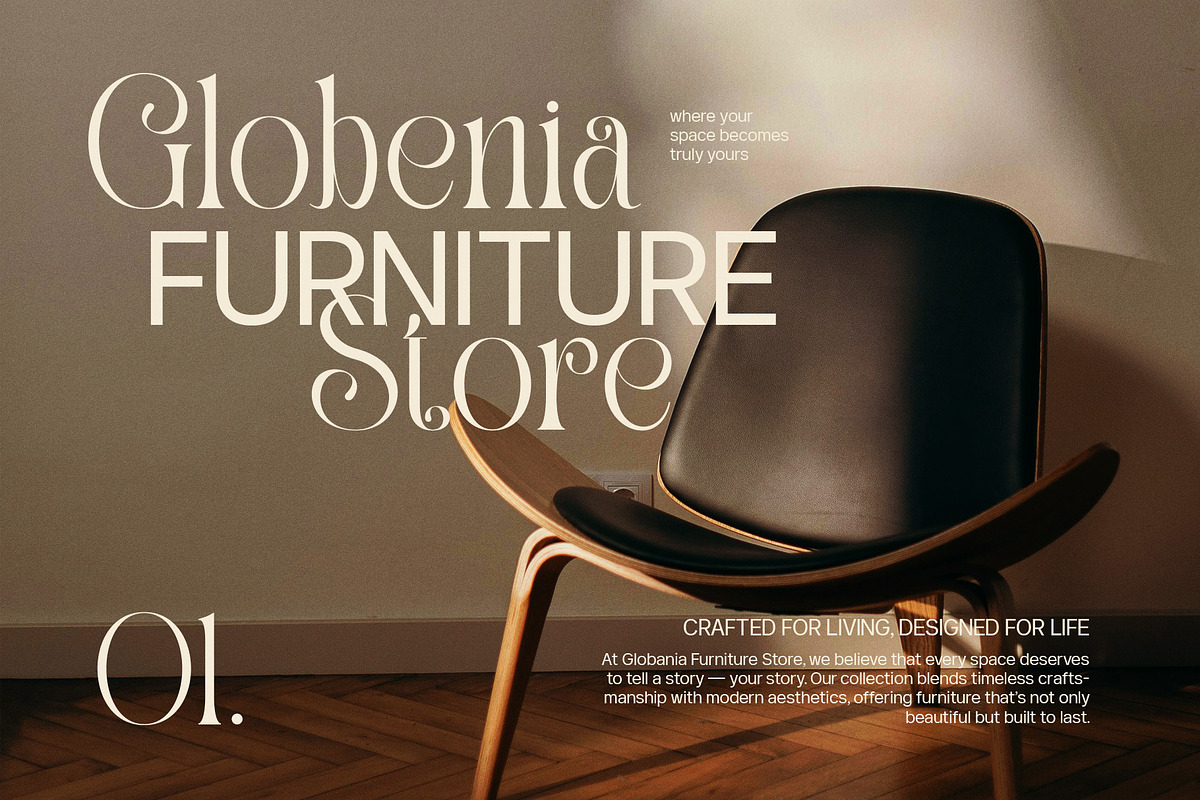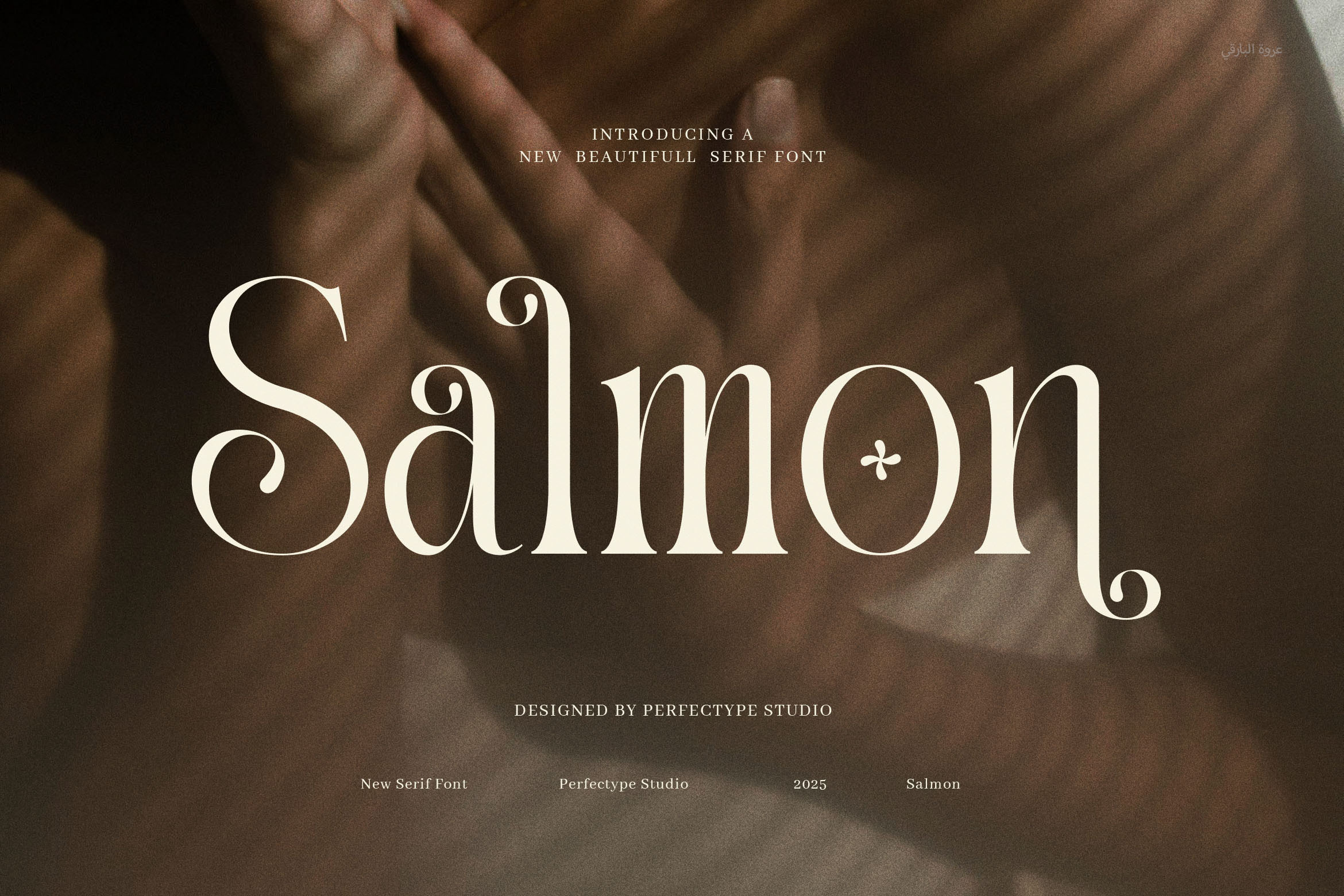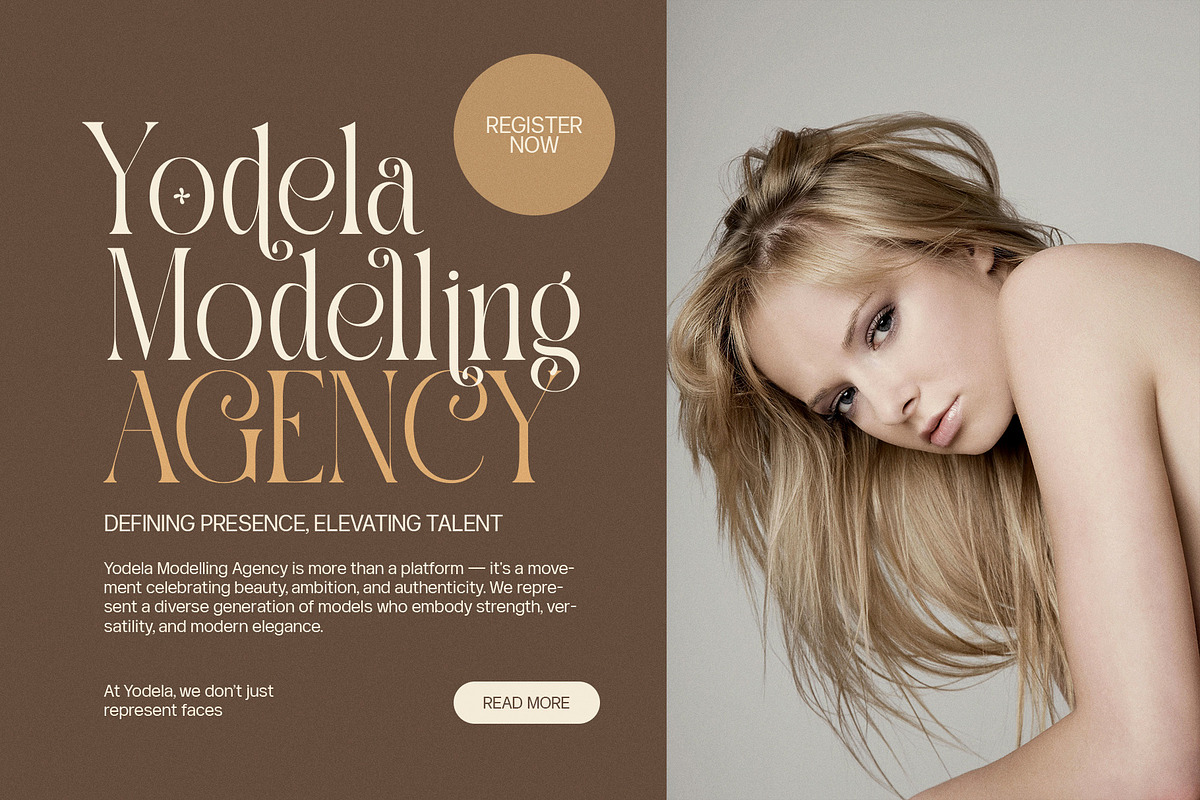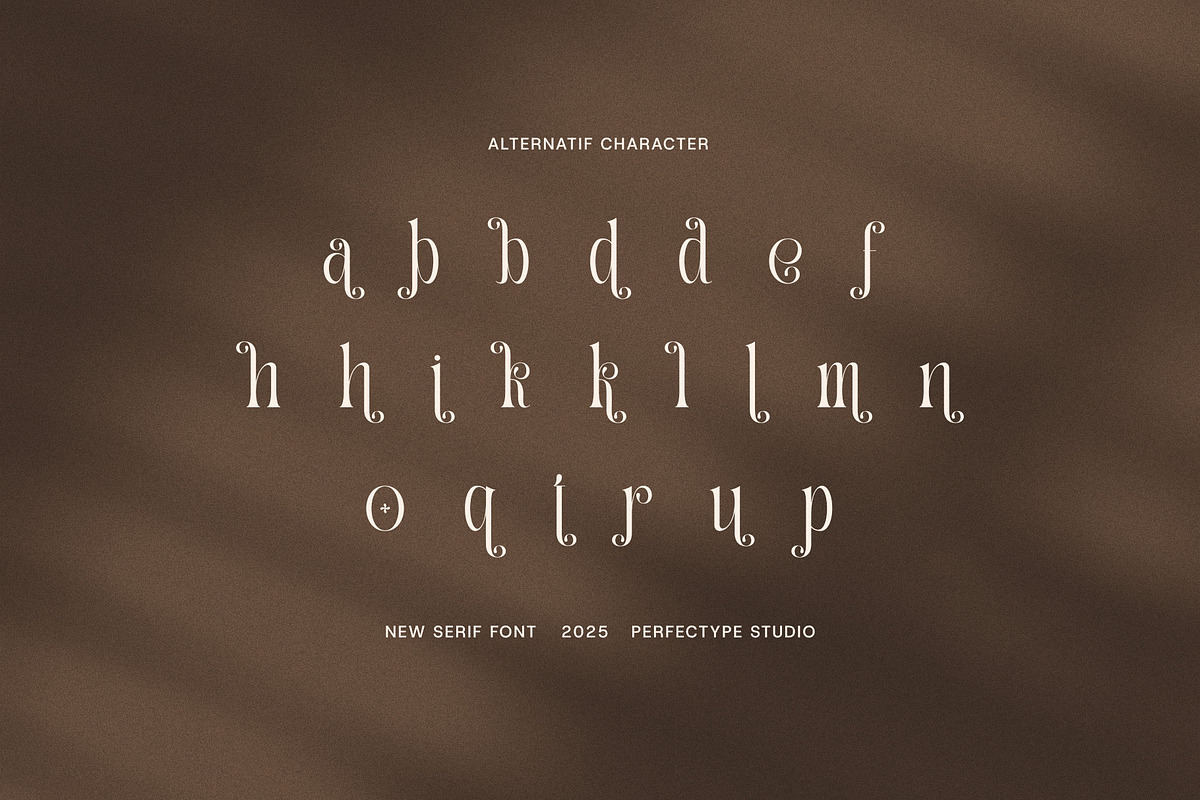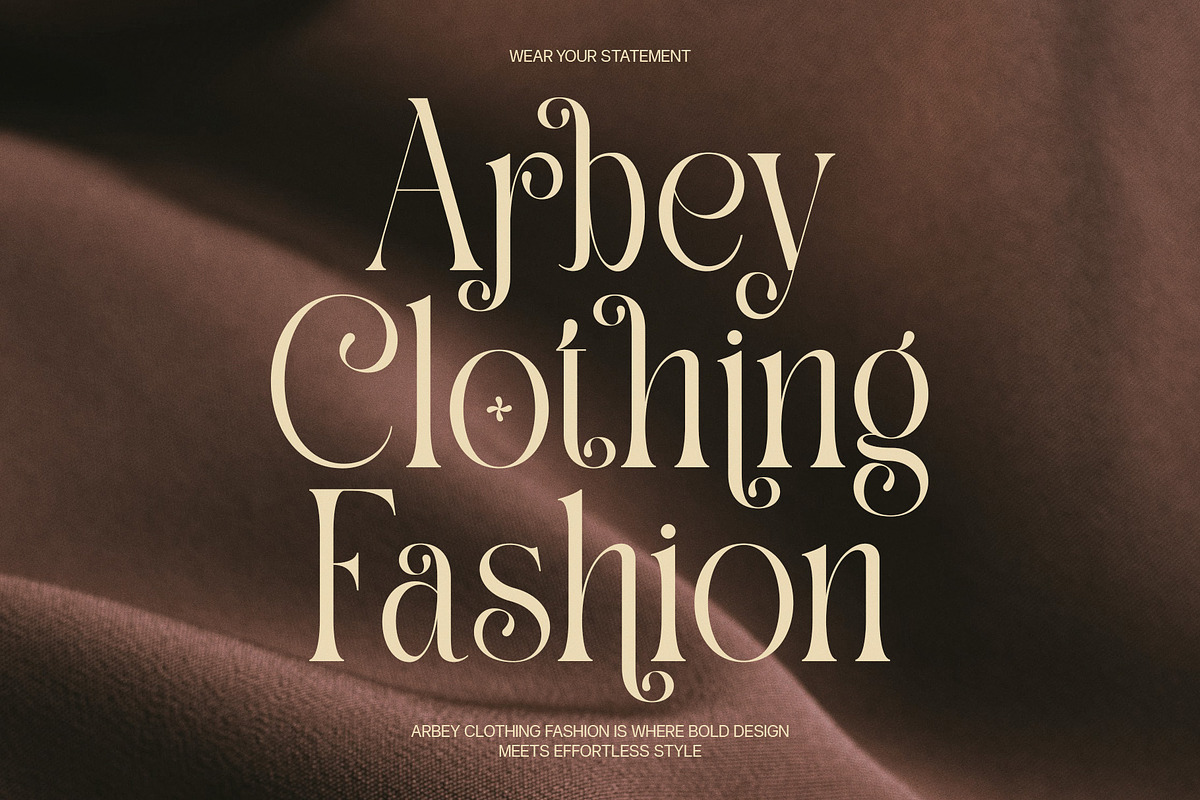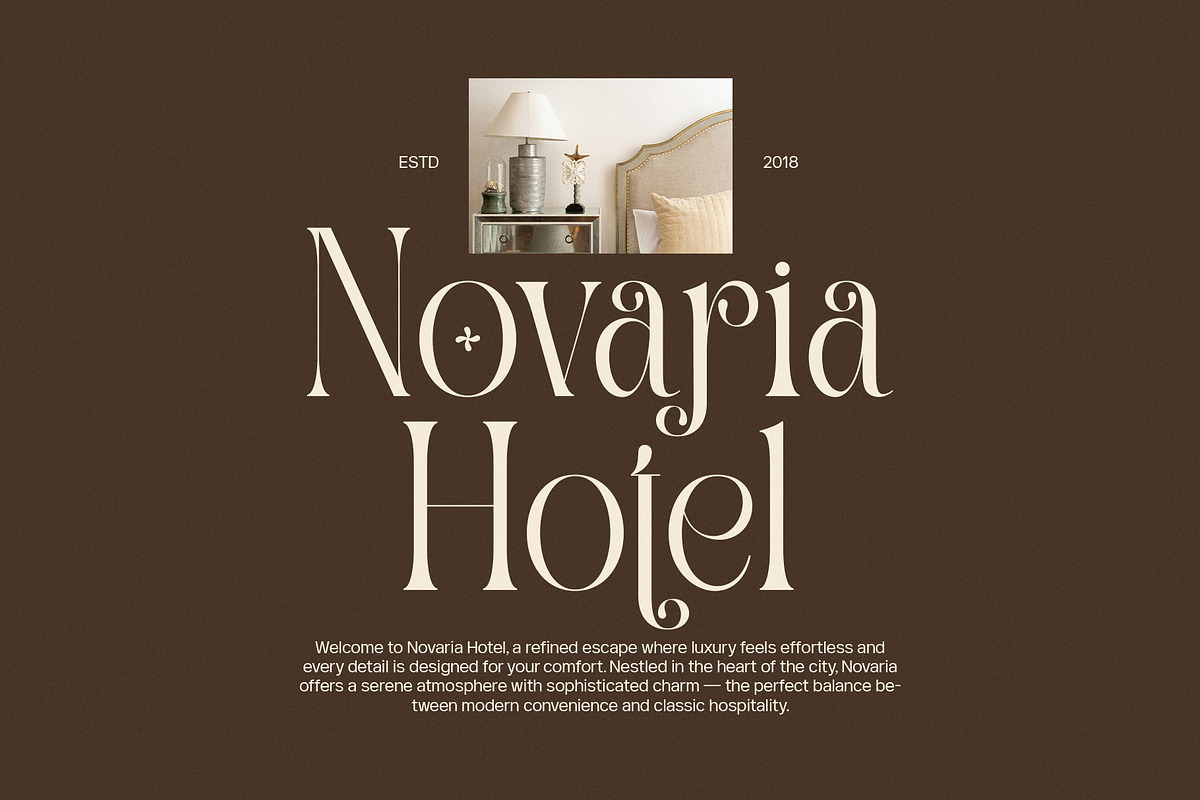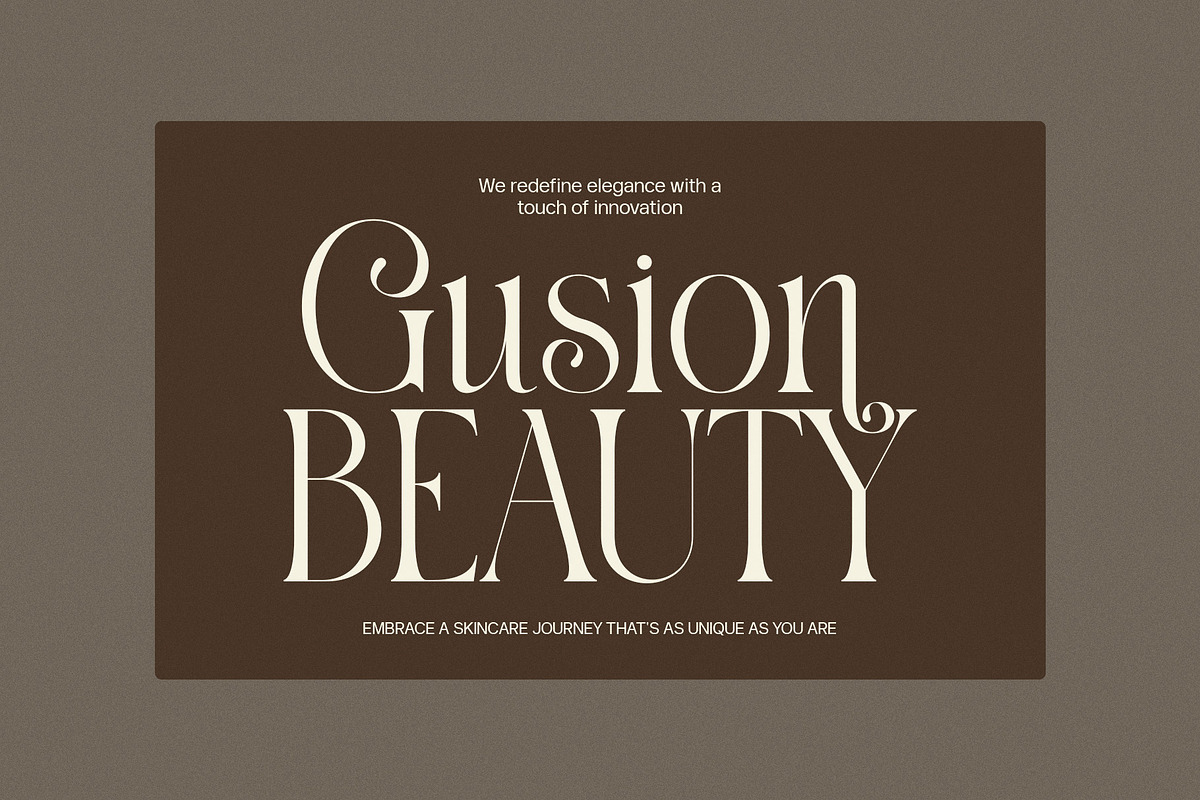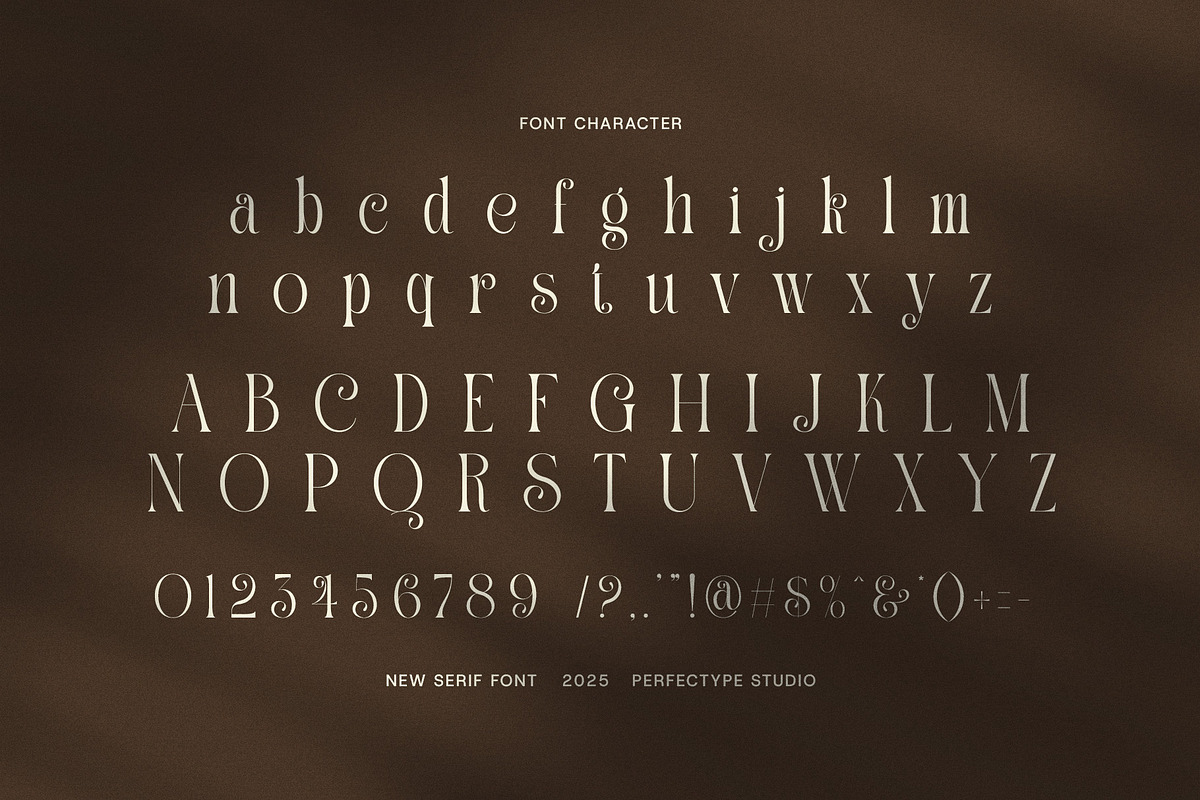
Salmon Elegant Serif Font
Salmon Elegant Serif Font is a stylish and modern typeface that brings sophistication to your designs. With soft curves, balanced spacing, and elegant details, this font is crafted to elevate everything from branding to packaging.
Because it features functional ligatures, Salmon adds unique personality without making the text hard to read. These subtle ligature touches help your work feel polished and custom-made. As a result, your designs gain a more professional and refined appearance.
Whether you're designing for a fashion brand, a boutique product, or a lifestyle blog, Salmon delivers both beauty and clarity. It works well in print and digital use. Plus, it's easy to pair with other fonts, making it highly versatile.
Not only is this font beautiful, but it’s also practical. Its proportional letterforms ensure balance in every layout. Also, its modern serif style keeps your designs current while still feeling timeless.
Use Salmon Elegant Serif Font for a wide range of creative projects, including:
Fashion and beauty branding
Editorial design and magazines
Product packaging and labels
High-end websites and blogs
Boutique signage and logos
Social media content
Invitations and stationery
Food and lifestyle advertising
If you want a font that is elegant, modern, and reliable, Salmon is the perfect choice. It’s simple to use, highly adaptable, and makes every design look more refined. Because of its versatility, it works across industries—from retail to creative services.
Choose Salmon to give your next project a touch of luxury and style without overcomplicating your design.